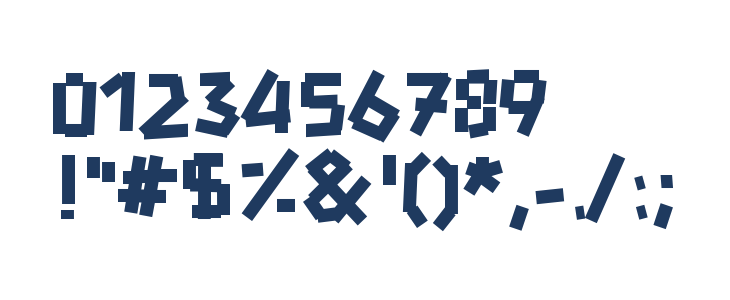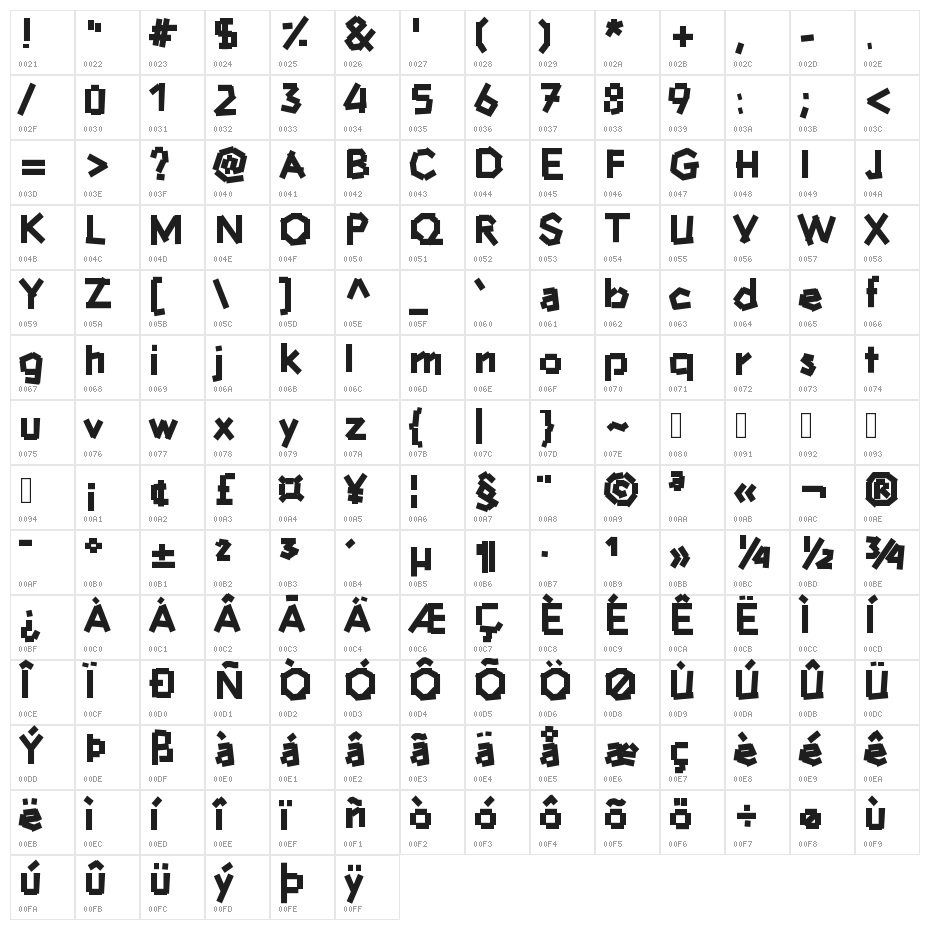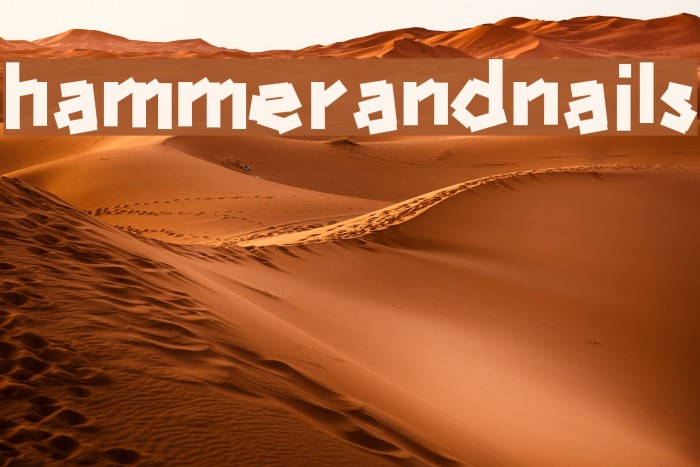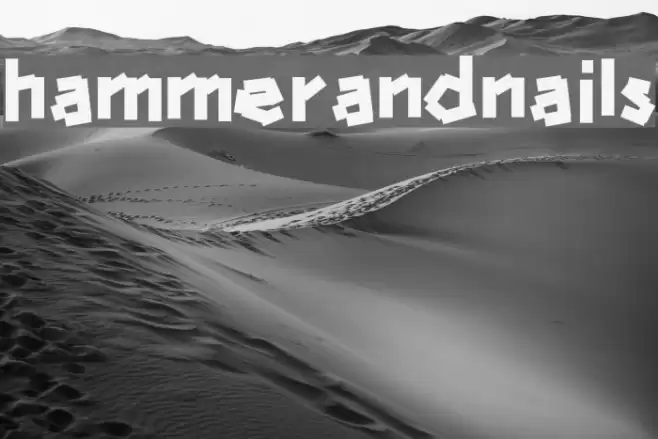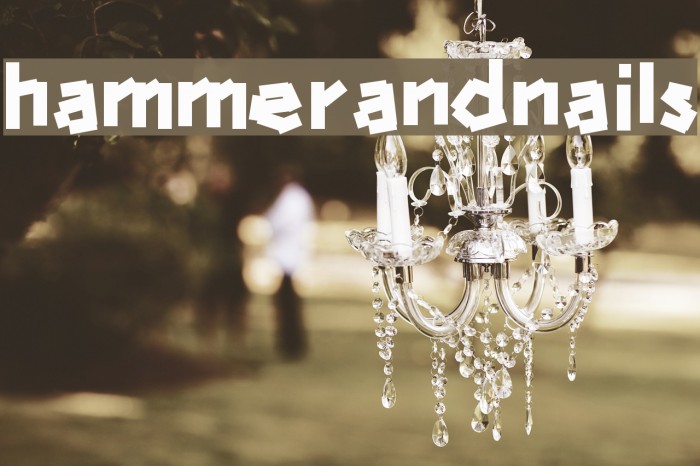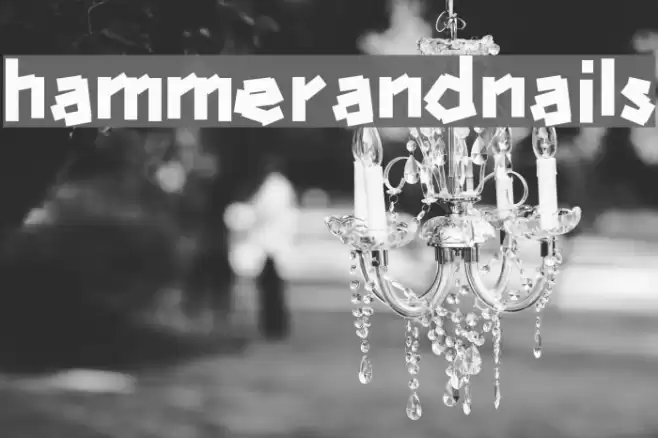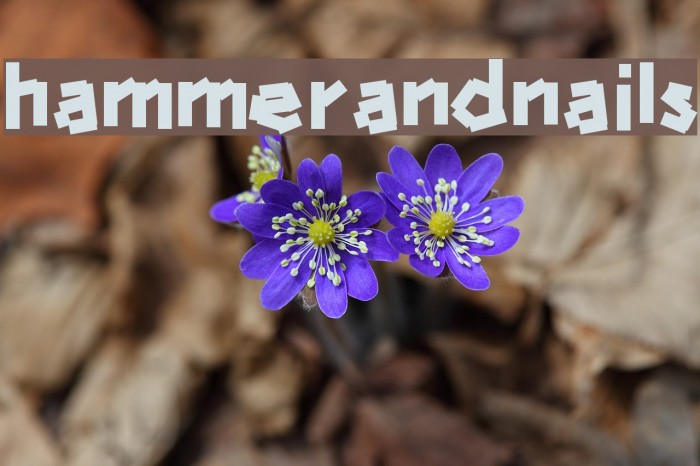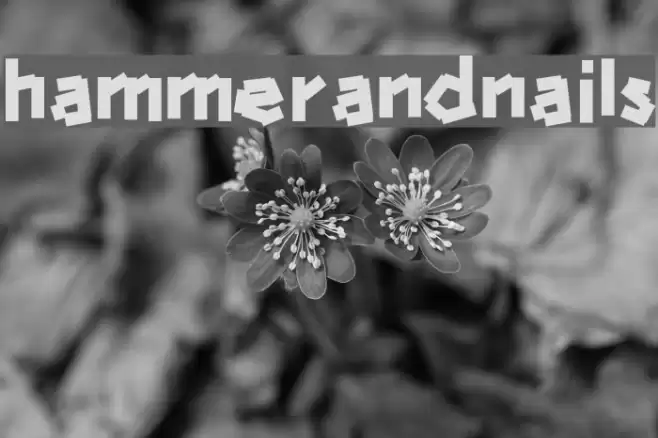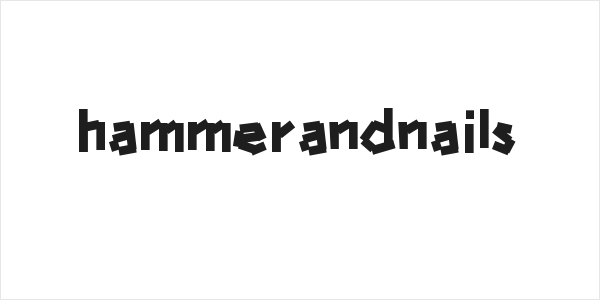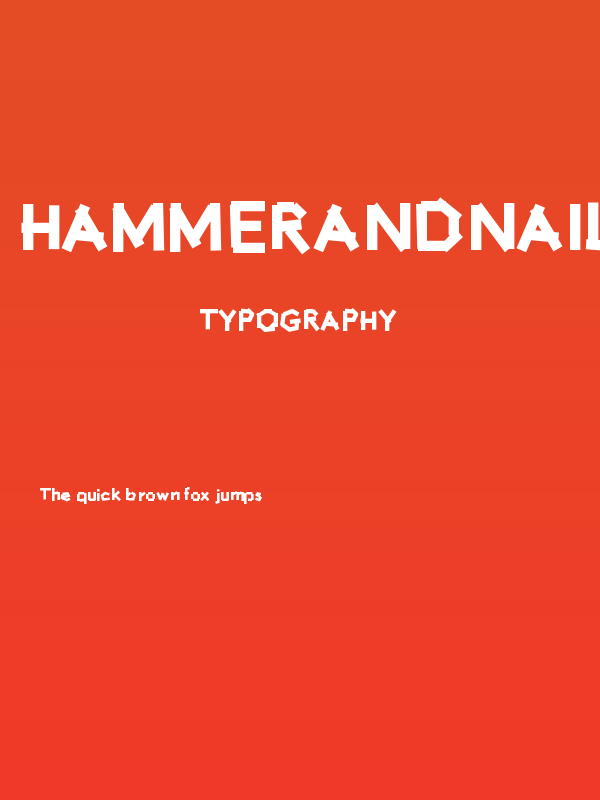
hammerandnails Font
hammerandnails Description
This font features a bold and angular design with a distinct geometric style. The characters are constructed with sharp edges and a blocky appearance, giving it a rugged and industrial feel. The uppercase and lowercase letters maintain a consistent width, while the numbers and special characters follow the same angular theme. The font's unique style makes it stand out, with each character having a slightly irregular shape that adds to its handcrafted look. The overall design is eye-catching and suitable for projects that require a strong visual impact.
| Overall Style | Industrial, Rugged |
| Proposed Projects | Ideal for posters, logos, branding, and any project needing a bold, industrial aesthetic. |